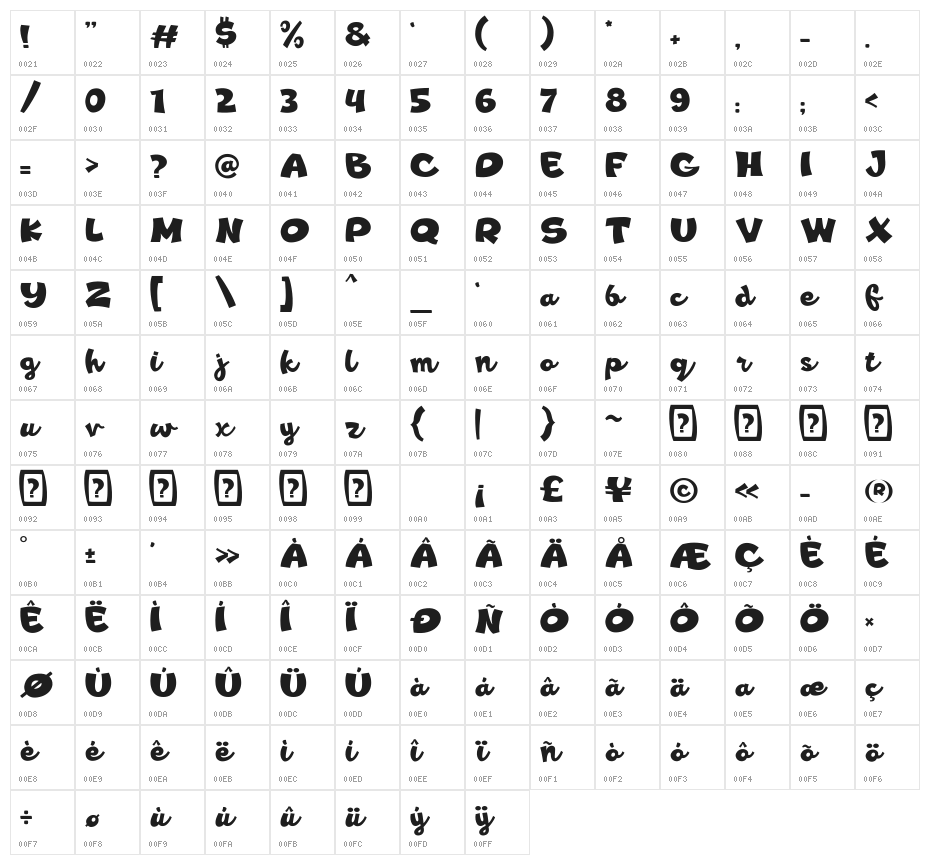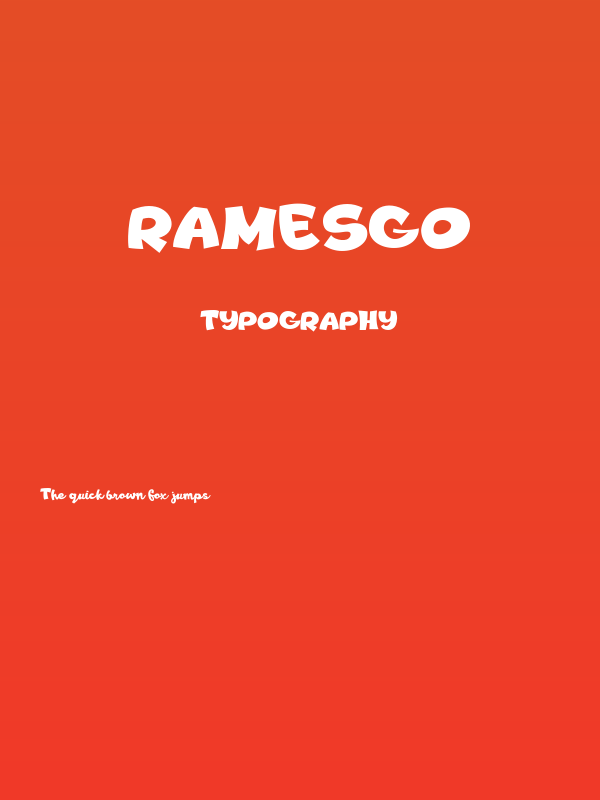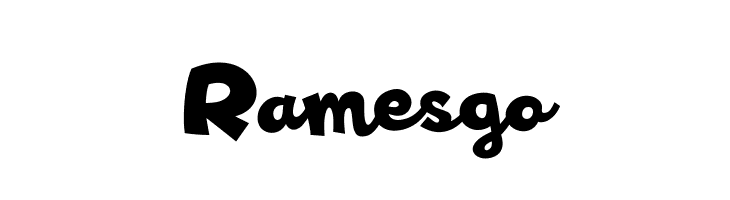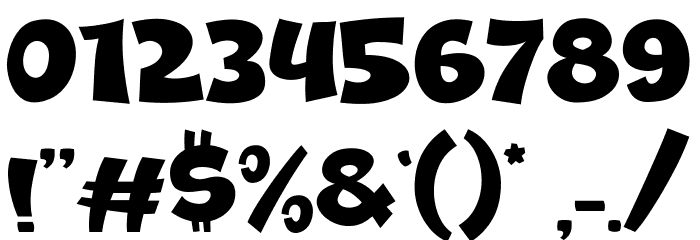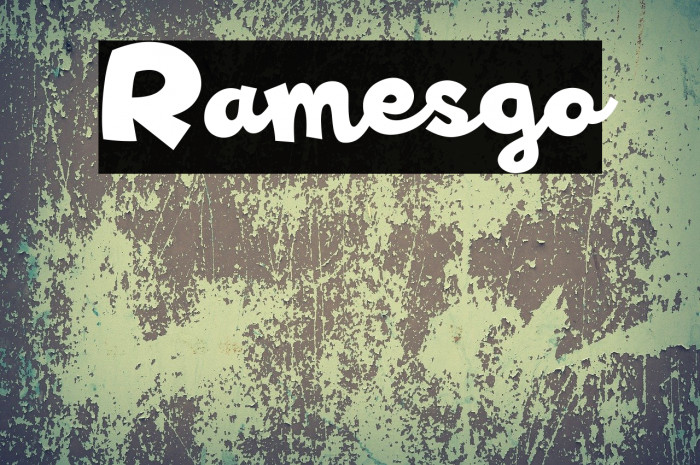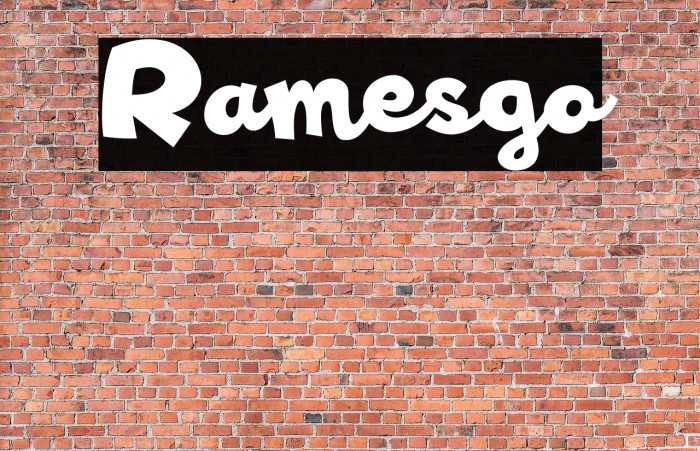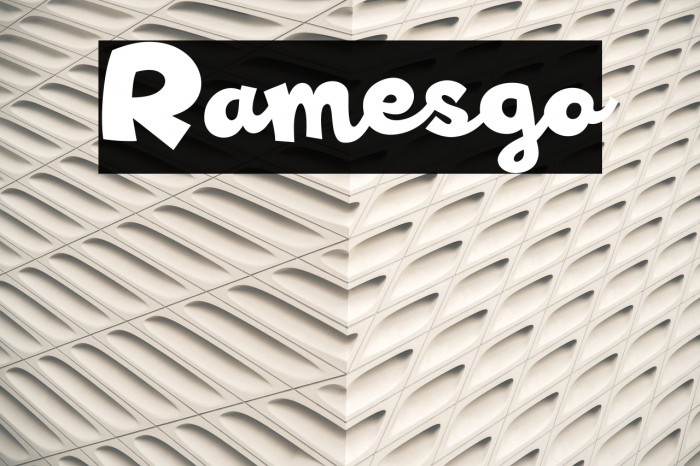
Ramesgo Font
This font features a bold and playful design, characterized by its thick, rounded strokes and whimsical curves. The uppercase letters are robust and slightly condensed, giving a strong presence, while the lowercase letters exhibit a more fluid and script-like quality, adding a touch of elegance. The numbers are consistent with the bold style, ensuring readability and impact. Special characters maintain the playful aesthetic, making them suitable for creative and informal contexts. Overall, the font combines a sense of fun with clarity, making it versatile for various design needs.
| Width | Condensed |
| Overall Style | Playful, Modern |
| Proposed Projects | Ideal for children's books, playful branding, event posters, and creative social media graphics. |